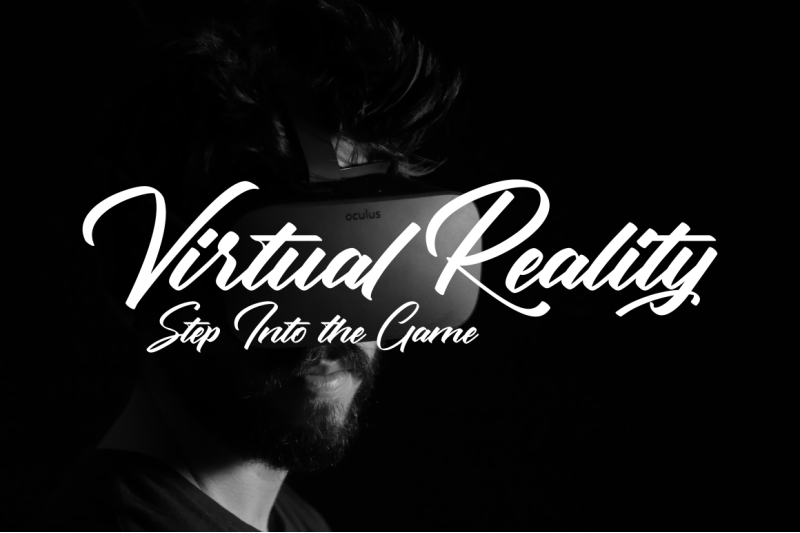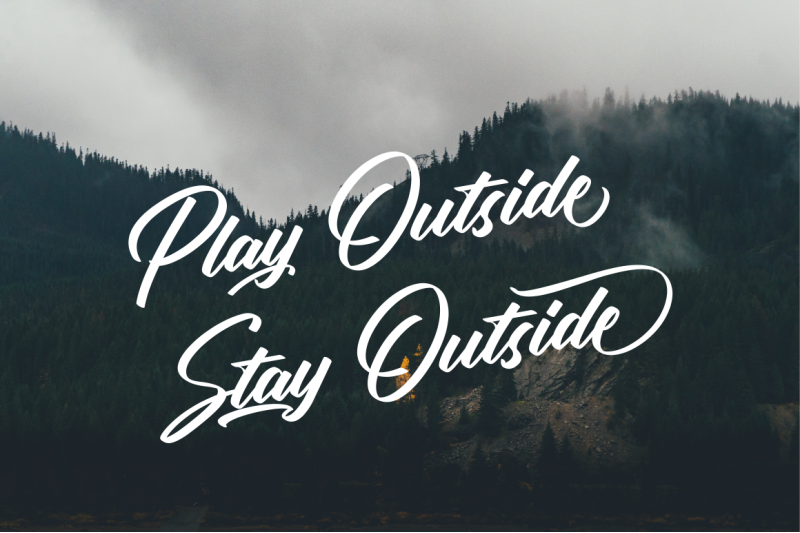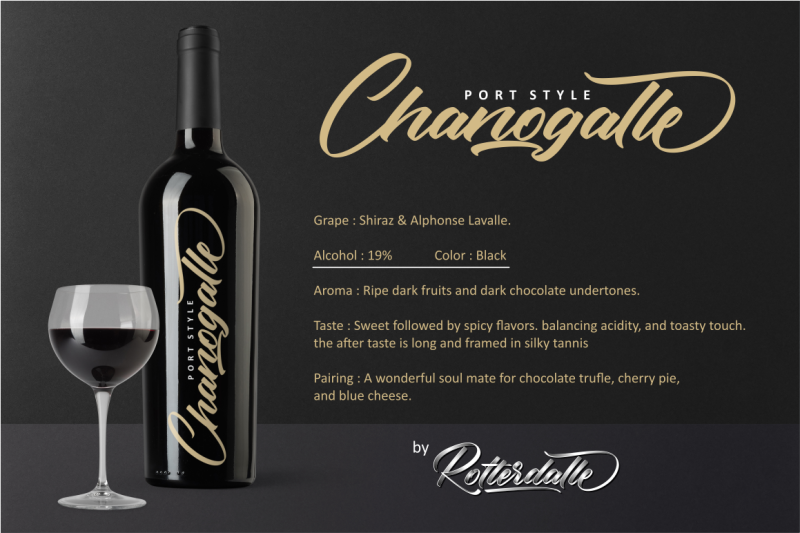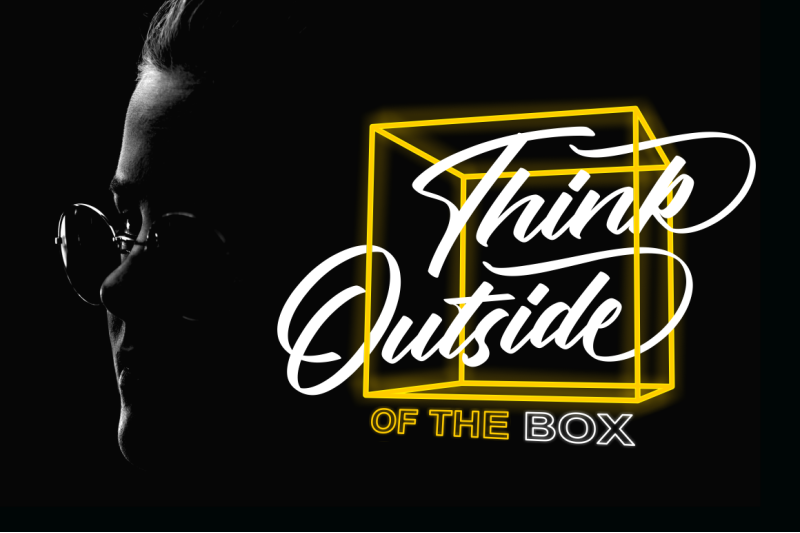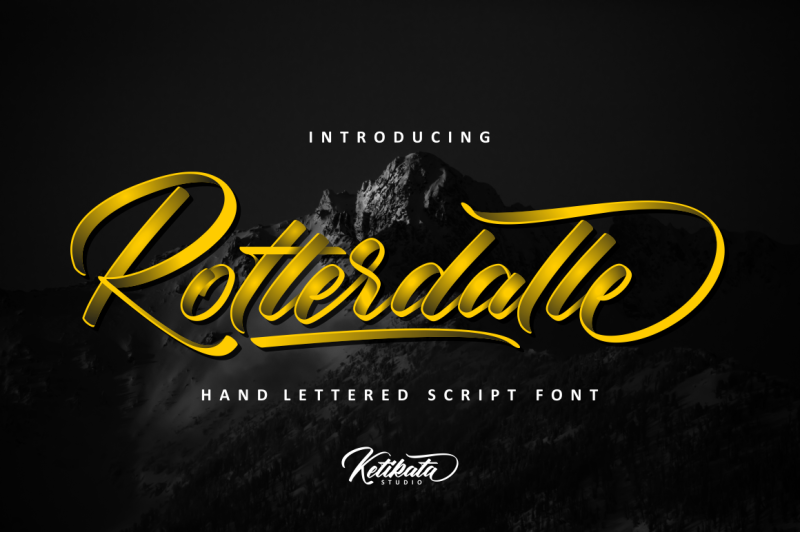
Rotterdalle Script Font
Hello everyone, are you looking for a classy font? This is handwritten script font with sophisticated style. With extra attention to quick strokes and sharp details and give off a real personal touch to your projects. Introducing Rotterdalle Font. Rotterdalle designed and shared by ketikata std. Rotterdalle Script Font is a striking hand-lettered script font. It was carefully crafted from a sketch and has a young and energetic feel which can be used to create an unique logotypes, name tags, quotes, business cards, apparel, packaging and much more! It was carefully made so that each letter could be connected well and elegantly either using alternates or not.